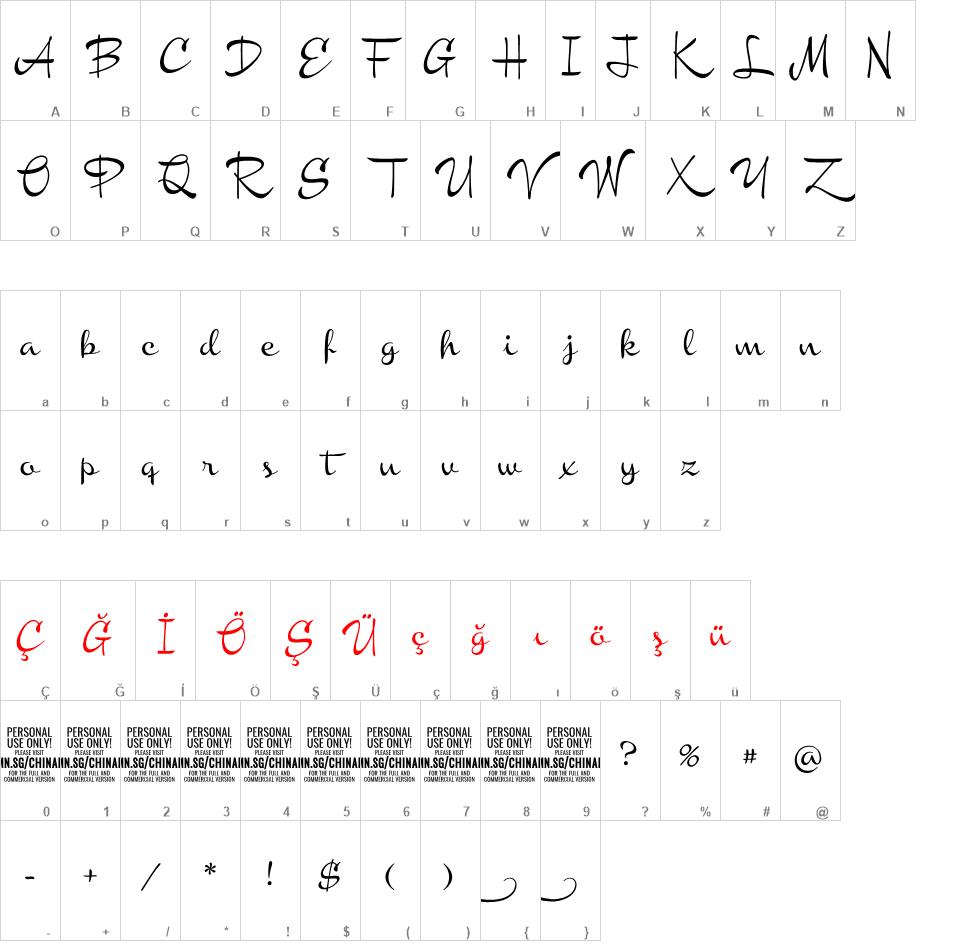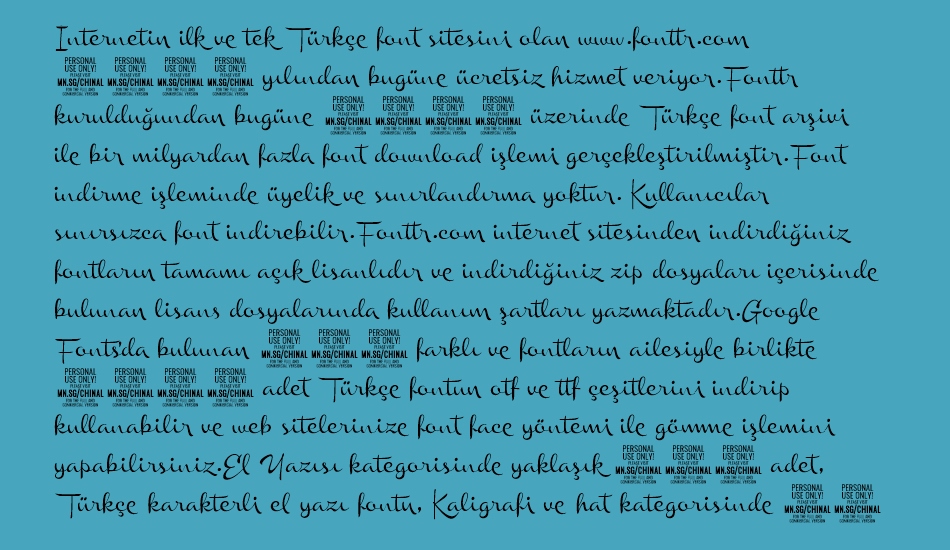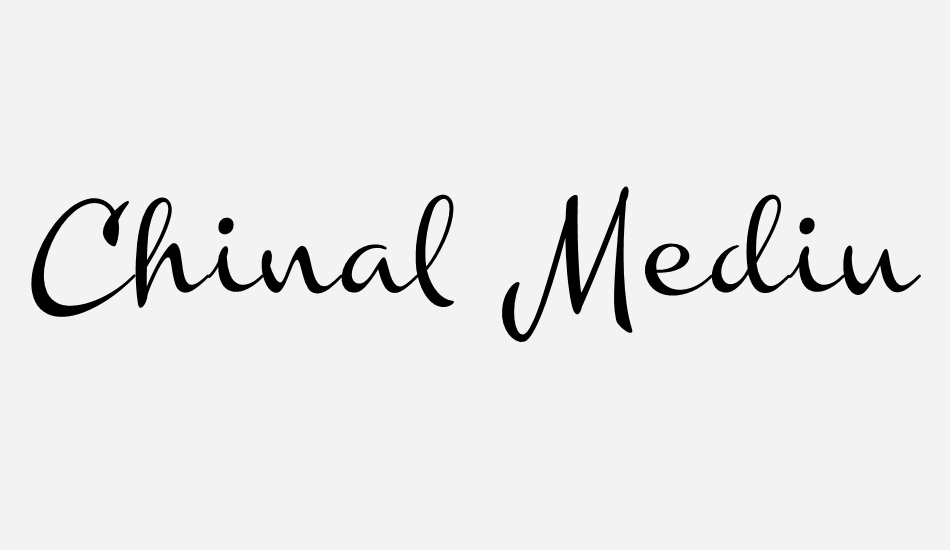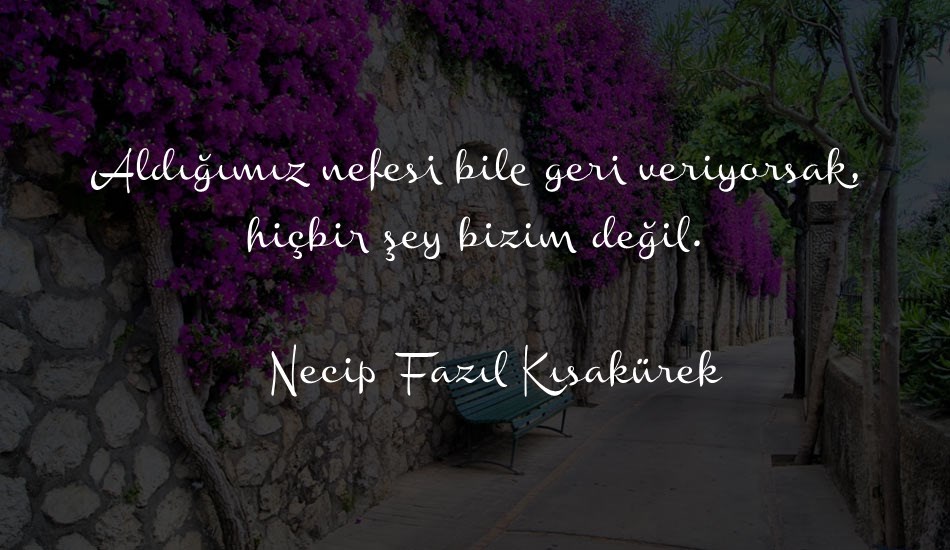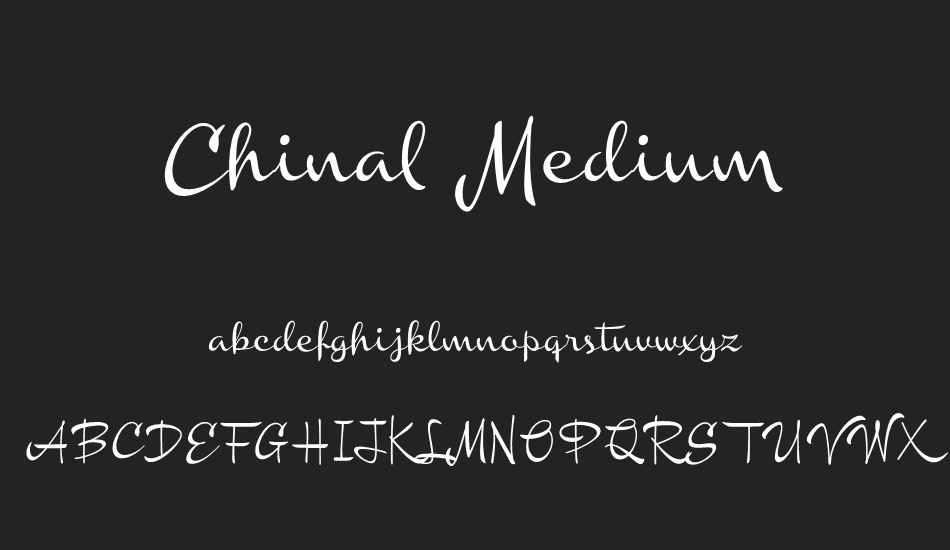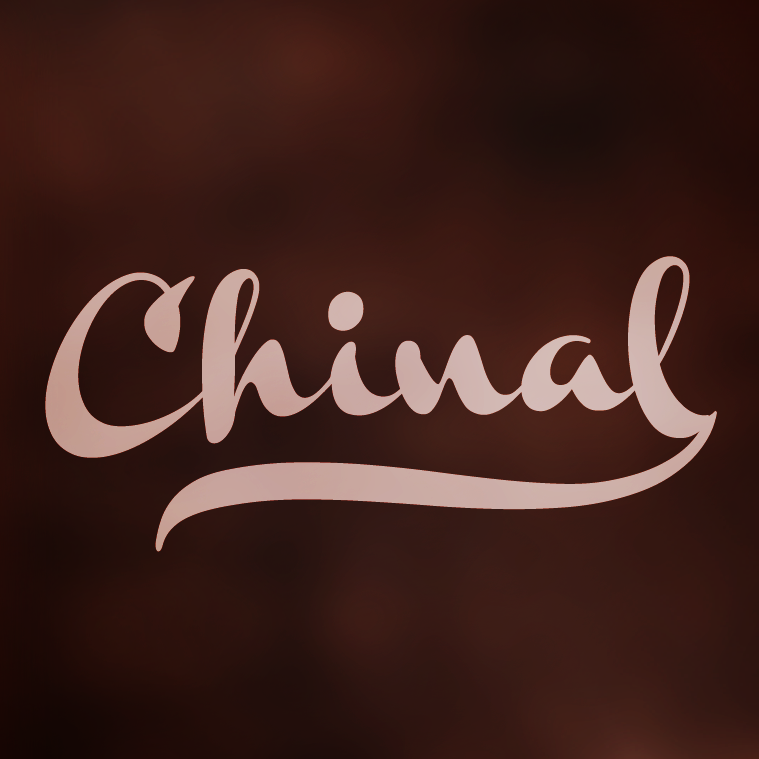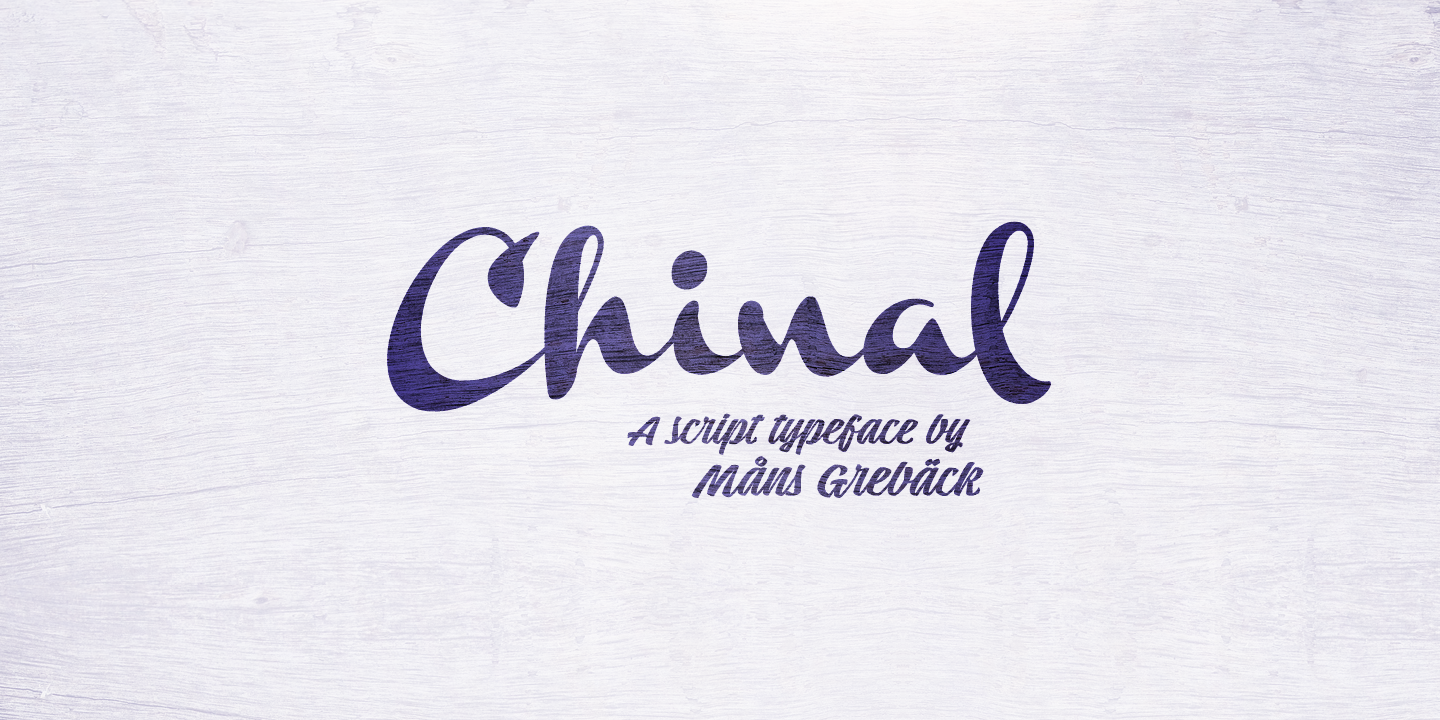
Chinal font
Make swashes with [ ] { }
Example: Chinal{
Chinal font
Chinal is a harmonic script typeface, drawn and created by M?ns Greb?ck during 2017.
This high quality typeface family comes in four complementing weights:
Chinal Light, Chinal Medium, Chinal Bold and Chinal Black.
The font also contains multiple extra OpenType features; including
contextual alternates, a set of stylistic alternate characters,
swashes, initial and final letters, ornaments and ligatures.
With its hundreds of glyphs, Chinal supports a very wide range of languages.
Make swashes with [ ] { }
Example: Chinal{